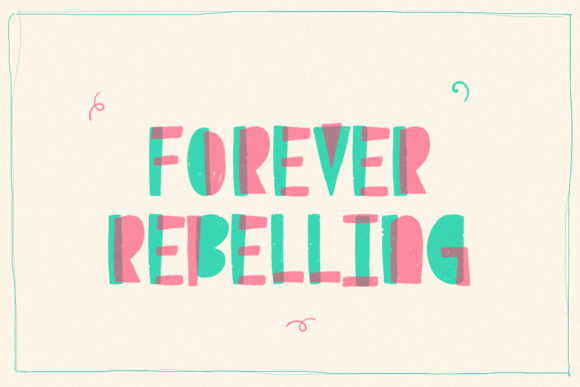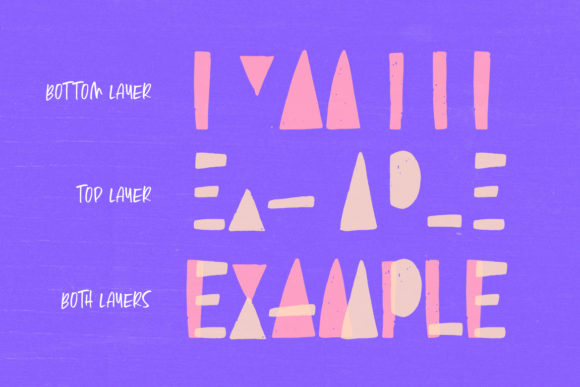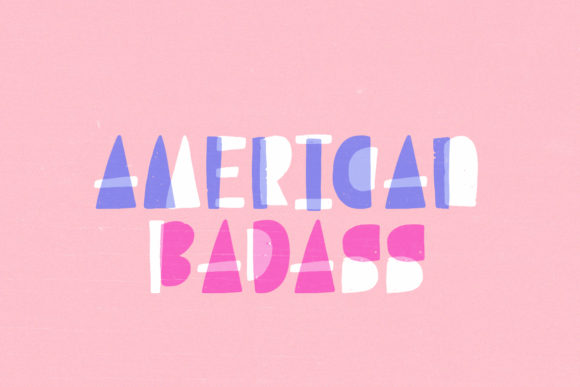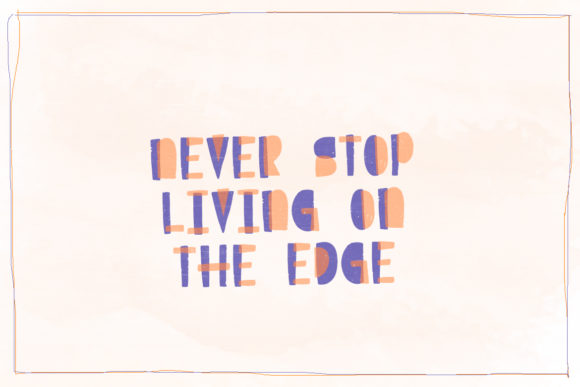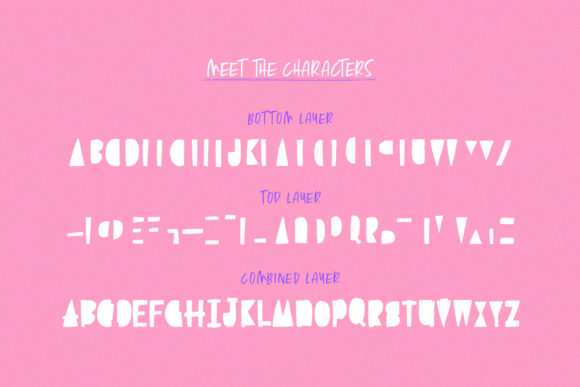
Introduction to Punk Lover Font
Punk Lover is a unique and eye-catching display font.
Its unique style makes it incredibly fitting to a large pool of designs The only limit is your imagination.
Key Features of Punk Lover Font
Why Choose Punk Lover Font?